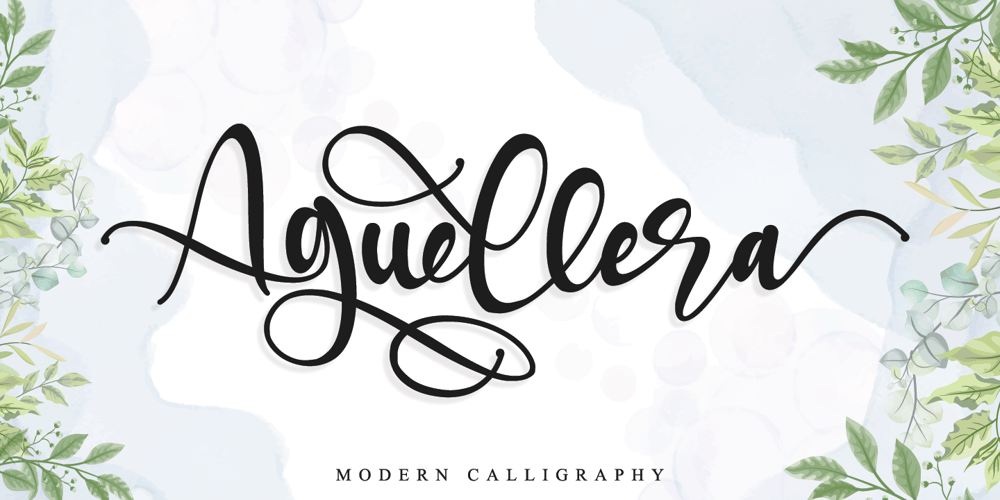
Aguellera Font Family was designed by Thomas Aradea and published by Letterara. Aguellera contains 2 styles and family package options. Aguellera is an elegant font with a romantic appeal; this font is for those who are in need of an elegant and appropriately modern calligraphy script. Aguellera will turn any creative idea into a true piece of art! This font is PUA encoded which means you can access all of the amazing glyphs and swashes with ease! It also features a wealth of special features including alternate glyphs and ligatures.